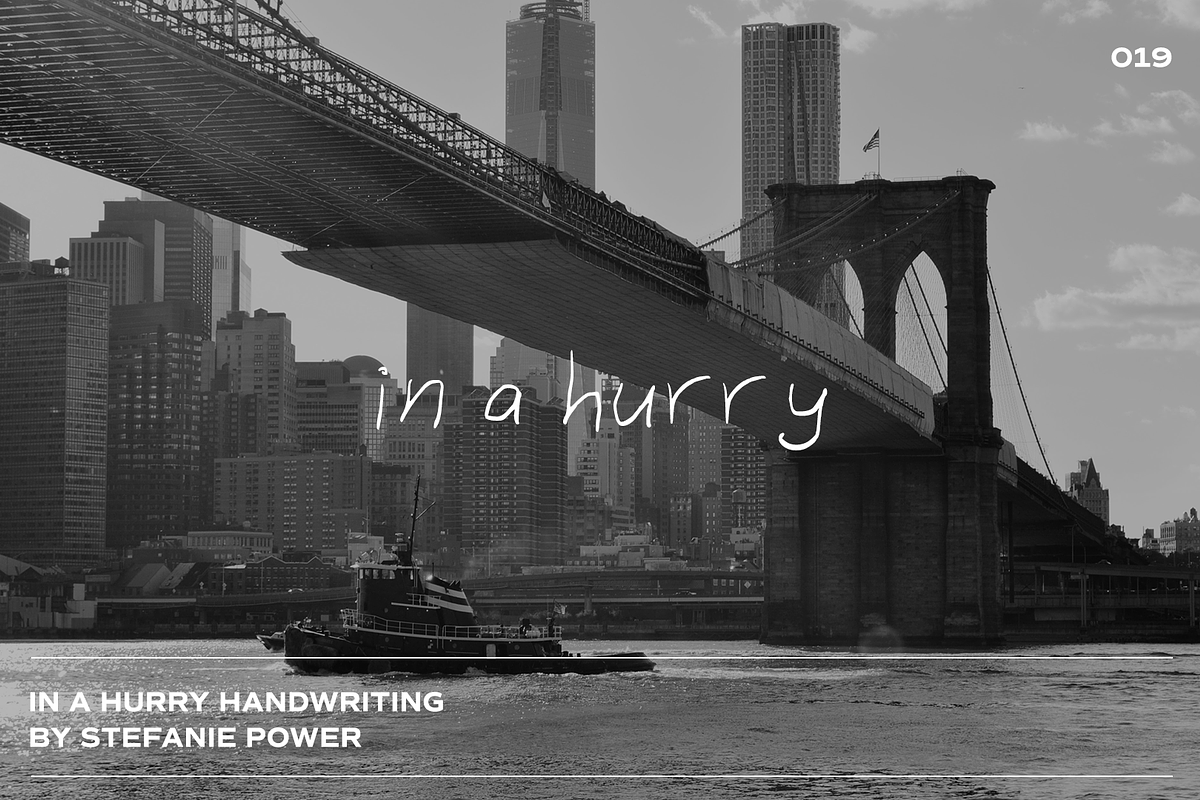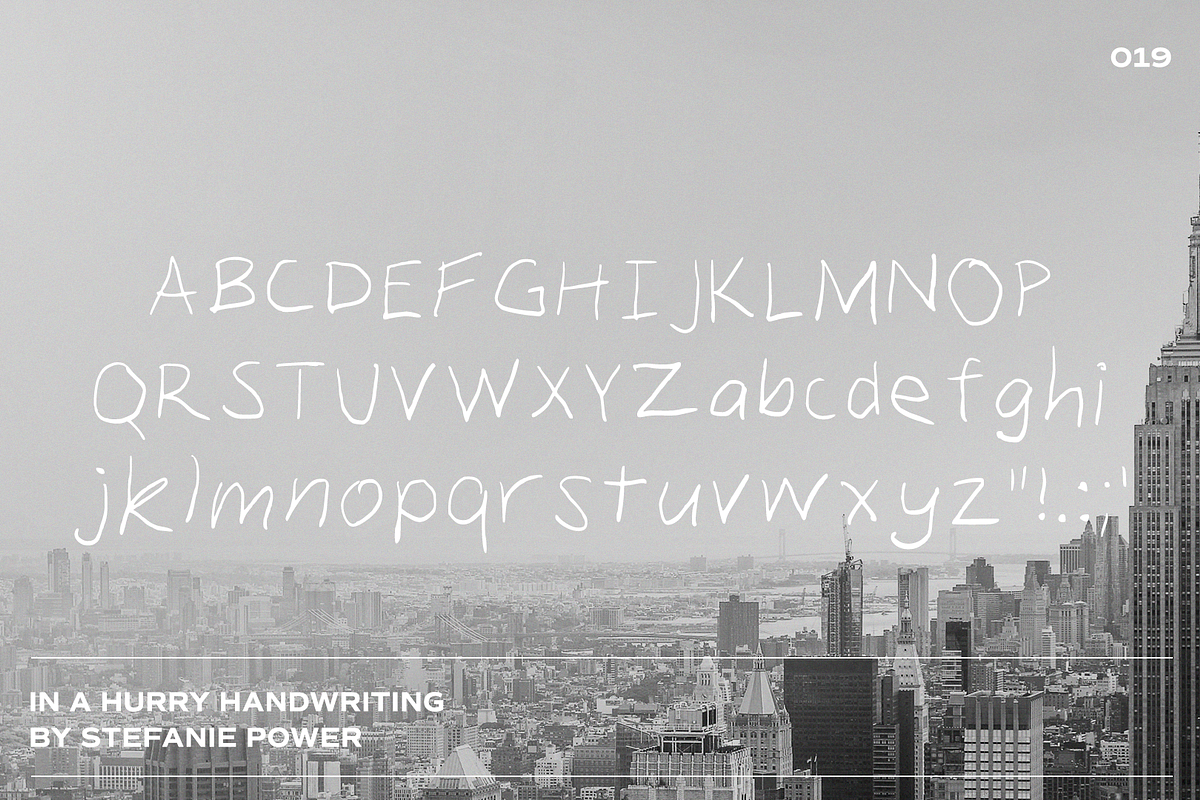
in a hurry Handwriting | Font
Introducing 'in a hurry' - a fun and messy font
in a hurry Handwriting • A handwritten script font containing upper & lowercase characters and a range of punctuation and numbers.